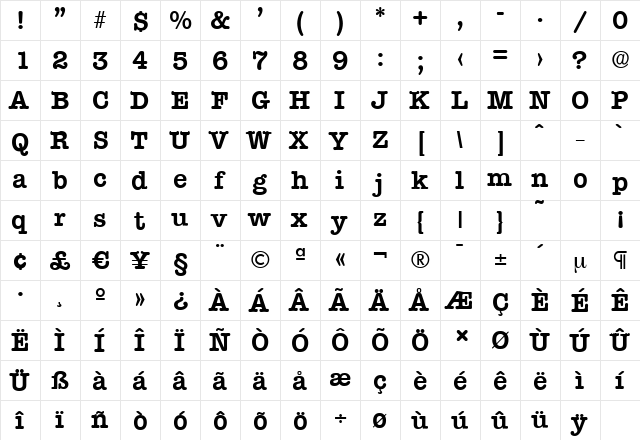
TypewriterSerial Bold Font Preview
Design Context for TypewriterSerial Typeface
TypewriterSerial uses fixed-width spacing throughout, giving it the structured, systematic character associated with coding environments and technical documentation. Its bold stroke weight gives it real presence on the page.
Well-suited to data-driven dashboards, coding tutorials, and any design that wants to reference the world of programming.
Pro Tip: Use TypewriterSerial with slightly increased line-height for extended reading — fixed-width spacing can feel dense in longer passages without extra breathing room.